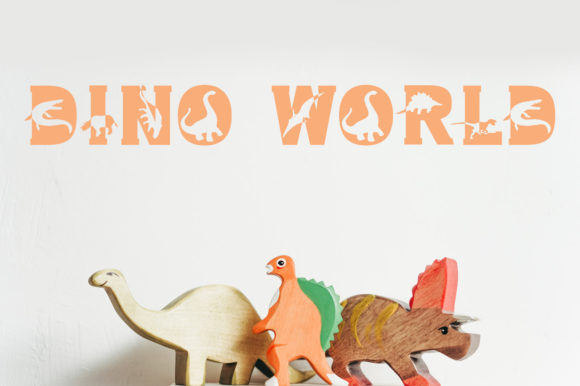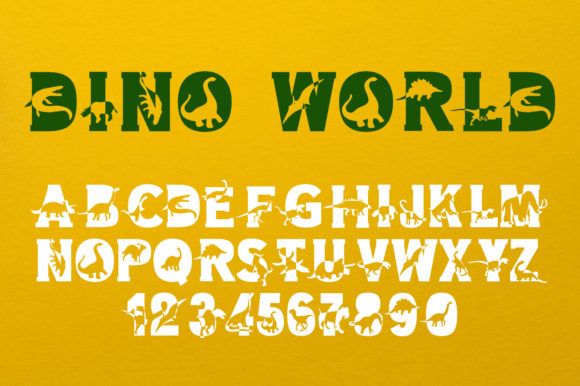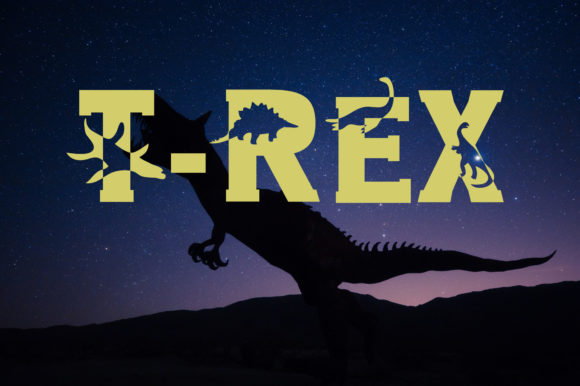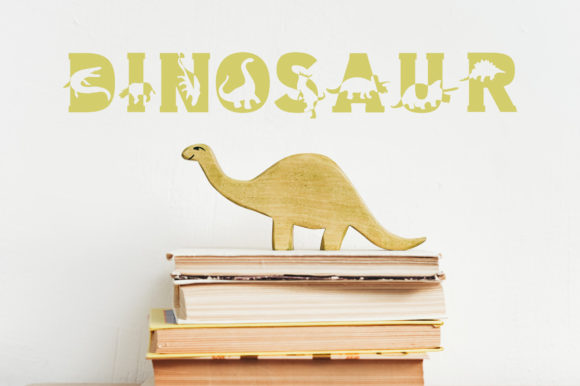
Dino World Font: A Roar-some Addition to Your Design Projects
Are you a designer, crafter, or DIY enthusiast looking for a unique and fun font to add a touch of excitement to your projects? Look no further than the Dino World Font! This amazing display font features dinosaurs-themed characters that are sure to delight kids and adults alike. In this article, we’ll take a closer look at the Dino World Font, its features, and how you can use it to create exquisite and fun designs for your kids and school projects.
What is Dino World Font?
Dino World Font is a display font designed to bring a prehistoric touch to your designs. The font features a range of dinosaurs-themed characters, including letters, numbers, and punctuation marks, all designed to look like they’re from a bygone era. The font is perfect for designers, crafters, and DIY enthusiasts who want to add a fun and playful touch to their projects.
Key Features of Dino World Font
- Dinosaurs-themed characters: The font features a range of dinosaurs-themed characters, including letters, numbers, and punctuation marks.
- Exquisite and fun design: The font is designed to add an exquisite and fun look to any kids and school projects.
- Perfect for kids and school projects: The font is ideal for designing materials for kids, such as posters, flyers, and worksheets.
How to Use Dino World Font
Using the Dino World Font is easy! Here are a few ways you can incorporate it into your design projects:
- Kids’ party invitations: Create custom party invitations that feature dinosaurs and set the tone for a roar-some celebration.
- School projects: Use the font to create posters, flyers, and worksheets that make learning fun and engaging.
- DIY crafts: Add a personal touch to your DIY crafts, such as scrapbook pages, cards, and gift tags, with the Dino World Font.
- Digital designs: Use the font to create digital designs, such as social media graphics, blog posts, and presentations, that are sure to grab attention.
Benefits of Using Dino World Font
There are many benefits to using the Dino World Font in your design projects. Here are a few:
- Adds a fun touch: The font adds a fun and playful touch to any design project, making it perfect for kids and school projects.
- Unique and creative: The font is unique and creative, allowing you to stand out from the crowd and create designs that are truly one-of-a-kind.
- Easy to read: The font is easy to read, making it perfect for designs that require a clear and concise message.
- Customizable: The font is customizable, allowing you to adjust the size, color, and style to fit your design needs.
Tips and Tricks for Using Dino World Font
Here are a few tips and tricks for using the Dino World Font:
- Use it sparingly: Use the font sparingly to add emphasis and create visual interest in your designs.
- Pair it with other fonts: Pair the Dino World Font with other fonts to create a unique and creative look.
- Experiment with colors: Experiment with different colors and textures to add depth and interest to your designs.
- Have fun: Most importantly, have fun and be creative with the Dino World Font!
In conclusion, the Dino World Font is an amazing display font that features dinosaurs-themed characters and is perfect for adding a fun and playful touch to your design projects. With its exquisite and fun design, ease of use, and customizable features, this font is sure to delight designers, crafters, and DIY enthusiasts of all levels. So why not give it a try and see how you can use the Dino World Font to create roar-some designs that will leave a lasting impression?